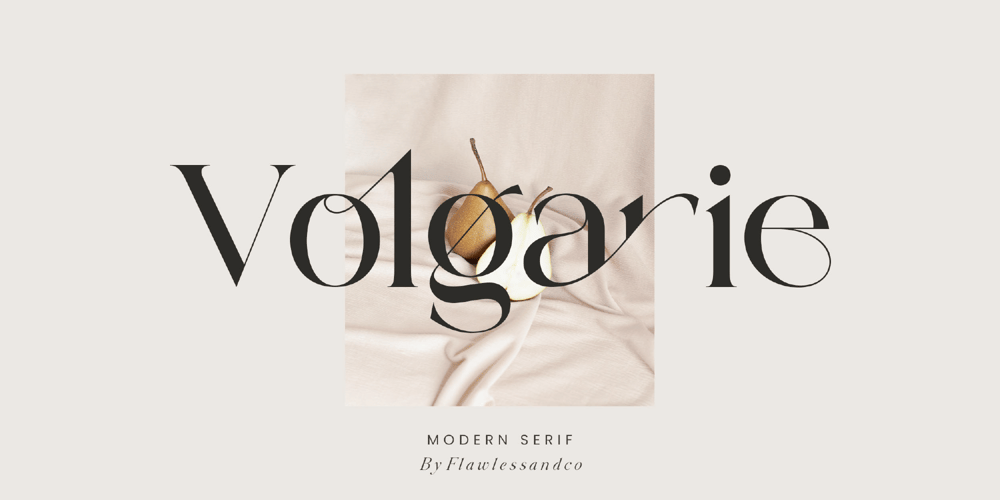
Volgarie Font Family was designed by Achmad Yani and published by Flawlessandco. Volgarie contains 1 styles and family package options. Volgarie is a modern serif font that gives a unique touch to any design you create! This font has small lines or flourishes at the end of the strokes that make up letters and symbols, with various alternates and ligatures in each character, while display fonts are intended to be used in larger sizes for headlines, titles, and other attention-grabbing elements.There’s some connected letters and some alternates that suitable for any graphic designs such as branding materials, t-shirt, print, business cards, logo, poster, t-shirt, photography, quotes .etcThis font support for some multilingual. Also contains uppercase A-Z and lowercase a-z, alternate character, numbers 0-9, and some punctuation.If you need help, just write me! Thanks so much for checking out my shop!